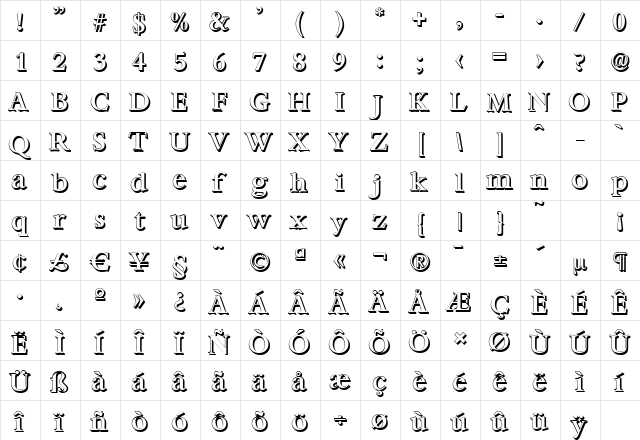
BernsteinShadow-Medium Regular Font Preview
BernsteinShadow-Medium Regular
BernsteinShadow-Medium Regular Font Details
Design Context for BernsteinShadow-Medium Typeface
BernsteinShadow-Medium is built around its visual character rather than neutral utility — its distinctive forms are designed to make an impression at display sizes.